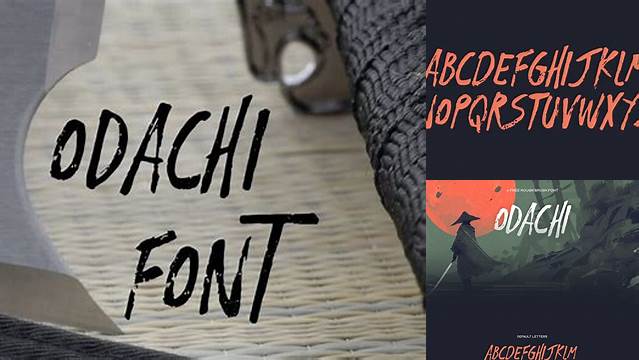
Hey guys! Are you looking to add a touch of Japanese calligraphy to your designs? Then you've come to the right place! In this comprehensive guide, we're diving deep into the world of the Odachi font, exploring its history, characteristics, and, most importantly, where you can find a free download. The Odachi font is more than just a typeface; it's a visual representation of strength, tradition, and artistry. This font family encapsulates the essence of Japanese aesthetics, making it a favorite among designers seeking to infuse their projects with cultural depth and visual impact. Whether you're working on a logo, poster, website, or any other creative endeavor, the Odachi font can add a unique and captivating flair. Its bold strokes and distinctive character shapes make it an excellent choice for headlines, branding, and any design element that needs to stand out. This guide will walk you through everything you need to know, from the font’s origins to its practical applications, ensuring you can make the most of this striking typeface in your projects. We'll explore the nuances of its design, compare it with similar fonts, and provide tips on how to use it effectively. So, buckle up and let's embark on this typographic journey together!
So, what exactly is the Odachi font? Let's break it down. The Odachi font is a typeface inspired by traditional Japanese calligraphy, specifically the powerful strokes and aesthetic of the Odachi sword. This font embodies strength, elegance, and a touch of the exotic, making it a popular choice for designs that need to convey a sense of boldness and cultural richness. Think of it as the typographic equivalent of a samurai warrior – strong, disciplined, and visually striking. The Odachi font is characterized by its thick, brush-like strokes and sharp edges, which give it a distinctive and commanding presence. It often features unique letterforms that echo the flowing movements of calligraphy, adding an artistic touch to any text. This font is not just about aesthetics; it’s about making a statement. Its robust design ensures readability while also capturing the eye, making it suitable for a range of applications. From logos and branding materials to posters and website headers, the Odachi font can transform your design from ordinary to extraordinary. Understanding the origins and characteristics of the Odachi font is crucial for using it effectively. Its inherent boldness means it works best in larger sizes and in contexts where it can command attention. When used sparingly and thoughtfully, it can add a touch of sophistication and cultural authenticity to your projects.
The Odachi font isn't just another typeface; it's a statement piece. Its characteristics are what make it so unique and captivating. The key characteristics of the Odachi font include its bold strokes, sharp edges, and brush-like texture, all of which are inspired by Japanese calligraphy and the formidable Odachi sword. The thickness of the strokes gives the font a strong, assertive presence, making it ideal for headlines and titles. The sharp edges add a touch of elegance and precision, while the brush-like texture hints at the font's artistic origins. This combination of elements creates a visually dynamic typeface that demands attention. Another notable characteristic is the font's unique letterforms. Many characters feature exaggerated curves and sharp angles that mimic the movements of a calligrapher's brush. This adds a sense of fluidity and dynamism to the text, making it feel both powerful and graceful. The Odachi font often includes stylistic alternates and ligatures, allowing designers to further customize the look and feel of their typography. These variations can add a subtle yet significant level of sophistication to a design. The font's overall aesthetic is one of strength and elegance, making it suitable for projects that aim to convey a sense of tradition, power, and artistry. Whether you're designing a logo for a martial arts studio, a poster for a Japanese cultural event, or a website for a high-end brand, the Odachi font can help you create a visually compelling and memorable design. Understanding these characteristics is essential for using the font effectively and achieving the desired impact in your work.
Now that you've got your hands on the Odachi font, let's talk about how to use it effectively in your designs. This font is a powerhouse, but like any strong element, it needs to be wielded with care. Overusing it can make your design feel overwhelming, while underusing it might not make the impact you're aiming for. The key is balance and thoughtful application. One of the best ways to use the Odachi font is in headlines and titles. Its bold and striking appearance makes it perfect for grabbing attention and setting the tone for your design. Think about using it for posters, website headers, or even logos. The font's strong personality will help your message stand out. However, it's generally not a good idea to use the Odachi font for body text. Its decorative nature can make it difficult to read in large blocks of text. Instead, pair it with a cleaner, more legible font for your paragraphs. This will create a visual hierarchy and ensure that your content is both beautiful and accessible. When choosing a pairing font, look for something that complements the Odachi font without competing with it. A simple sans-serif or a classic serif font can work well. Experiment with different combinations to see what feels right for your project. Consider the overall mood and message of your design. The Odachi font is often associated with Japanese culture, strength, and tradition. If your design aligns with these themes, the font can be a natural fit. However, if your design has a different vibe, you might want to use the Odachi font sparingly or in unexpected ways to create a unique effect. Don't be afraid to play around with the font's size, weight, and spacing to achieve the look you want. The Odachi font can be surprisingly versatile, and you might discover new ways to use it that you hadn't considered before. Remember, the goal is to create a design that is both visually appealing and effective in communicating your message. By understanding the strengths and limitations of the Odachi font, you can use it to create truly stunning designs.
If the Odachi font isn't quite the right fit for your project, or if you're looking for some variations on the theme, there are several excellent alternatives that capture a similar aesthetic. Exploring these options can help you find the perfect typeface to convey your message and style. One popular alternative is the Samurai font. Like the Odachi font, it draws inspiration from Japanese calligraphy and martial arts, featuring bold strokes and sharp angles. The Samurai font often has a slightly more aggressive and angular look, making it a good choice for designs that need to convey a sense of power and intensity. Another great option is the Kendo font. This typeface is characterized by its brush-like texture and flowing lines, reminiscent of the movements of a Kendo practitioner. The Kendo font tends to be a bit more elegant and refined than the Odachi font, making it suitable for projects that require a touch of sophistication. If you're looking for a font with a more modern and geometric feel, consider the Nippon font. This typeface combines traditional Japanese elements with contemporary design principles, resulting in a unique and versatile look. The Nippon font often features clean lines and a balanced structure, making it a good choice for a wide range of applications. For a font that captures the essence of Japanese ink painting, check out the Sumi font. This typeface has a soft, organic quality, with strokes that mimic the subtle variations of ink on paper. The Sumi font is ideal for designs that aim to evoke a sense of tranquility and artistic expression. Exploring these alternatives can open up new possibilities for your designs. Each font has its own unique personality and strengths, so experiment with different options to find the perfect match for your project. Remember to consider the overall mood and message of your design when making your selection. By understanding the nuances of each typeface, you can create a visually compelling and effective design.
So, there you have it – a comprehensive guide to the Odachi font! We've explored its history, characteristics, where to find a free download, how to use it effectively, and even some fantastic alternatives. The Odachi font is a powerful and versatile typeface that can add a touch of Japanese elegance and strength to your designs. Whether you're working on a logo, poster, website, or any other creative project, the Odachi font can help you make a lasting impression. Remember, the key to using the Odachi font effectively is to understand its strengths and limitations. Use it strategically in headlines and titles, pair it with a legible body font, and consider the overall mood and message of your design. And don't forget to check the licensing terms before using any free font, especially for commercial projects. By following these tips, you can harness the power of the Odachi font and create truly stunning designs. So go ahead, download the font, and start experimenting. Let your creativity flow and see what you can create with this amazing typeface. Happy designing, guys!